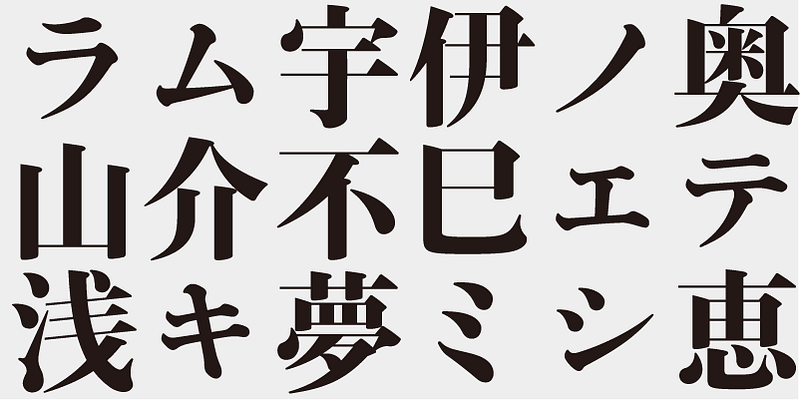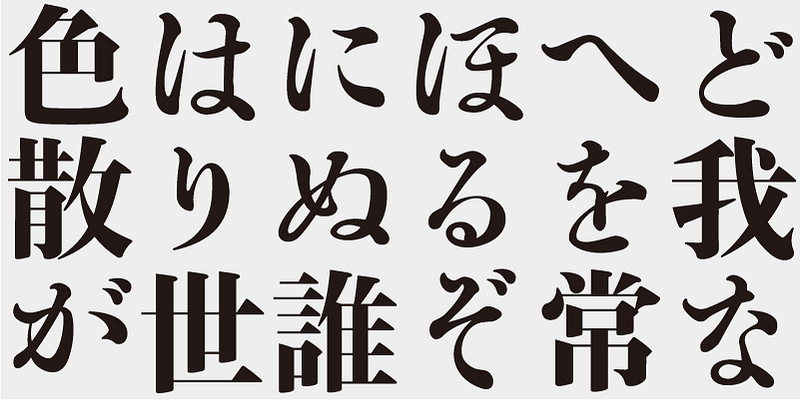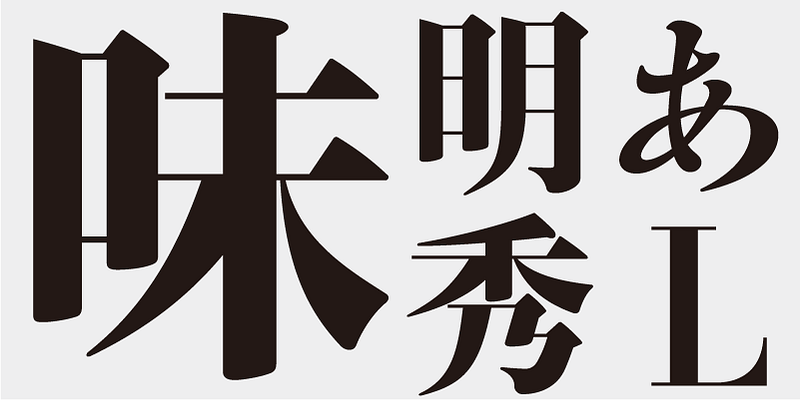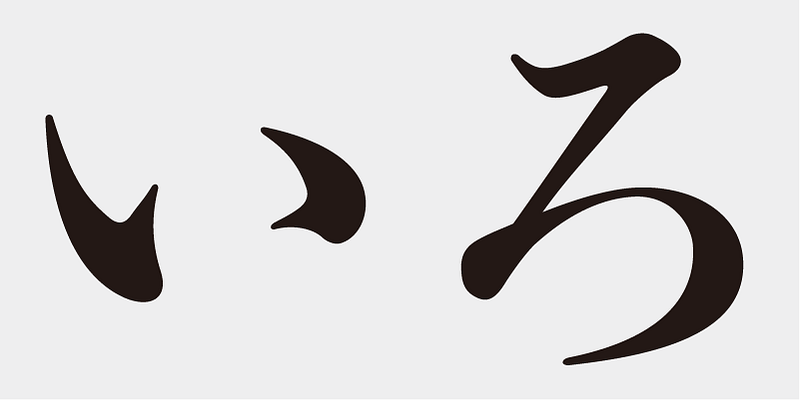
Although Ajimin has the flavor of hot metal type, it is not intended to be a revival, but a new typeface for display purposes. Like Bodoni, its vertical strokes are clear and heavy and its horizontal strokes are precise and thin. Its elements possess strength and stability.
Ajimin Modern’s elements are more sharply designed than those of Ajimin – the start and finish of vertical strokes are lowered for increased sharpness, and the horizontal strokes are cut vertically at the start and are thinner with a uniform width. Ajimin Modern is a sharp and elegant Mincho-style typeface.
This typeface is designed to be used in larger type sizes (for posters, for example), although it’s legible in smaller sizes. As the type size increases, the elegance of each stroke element becomes more visible.
Like “Tsukiji-tai”, “Shuei-tai” is one of the most influential typeface styles in the age of hot metal type. Produced by the printing house Shue-sha, later merged with another printing house to form Dainippon Printing, one reason for its popularity may be its idiosyncratic calligraphic style. This typeface design uses three different kana styles from Shuei-tai’s type samples.
Ajimin Modern Syu L/EB is a revival typeface based on the 3-go or 18-pt type used for the Daijiten Chinese-Japanese dictionary printed by Dainippon Printing. The character “L” in the font name stands for “Legacy”.
Ajimin has the flavor of hot metal type and, like Bodoni, its vertical strokes are clear and heavy and its horizontal strokes are precise and thin. Its elements possess strength and stability. Ajimin is a unique Mincho-style display typeface. Ajimin Modern’s elements are more sharply designed, but that sharpness is balanced by the richness and elegance of the design. Ajimin’s biggest feature is its 10 kana variations, ranging from running-hand-like designs, to revivals of designs from the age of hot metal type, to modern style kana. These variations make Ajimin useful for a wide range of purposes.